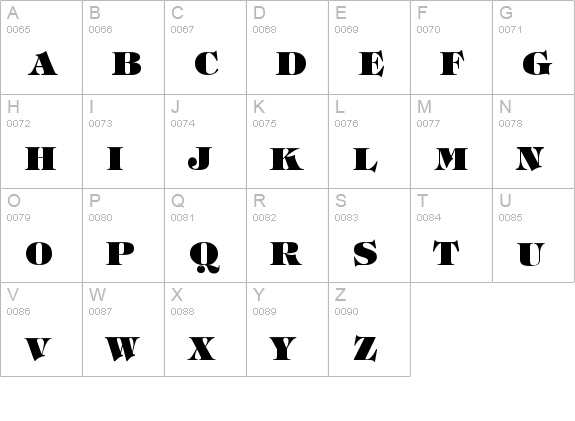
Tiffany-Heavy-Bold is a heavy, high-impact variant in the Tiffany typeface family \xE2\x80\x94 well suited to high-impact headlines, posters, and display advertising.
Introducing Tiffany-Heavy-Bold, a striking and powerful font that commands attention with its bold and heavy weight. This font exudes confidence, making it perfect for headlines, logos, and creative projects that require a strong visual impact. Tiffany-Heavy-Bold features clean and sharp lines that give it a modern and sophisticated look. Its thick strokes create a sense of stability and solidity, making it ideal for conveying a sense of strength and authority. But what sets Tiffany-Heavy-Bold apart is that it is not only visually impressive but also accessible to all. This font is freely available to download at FontsMarket.com, allowing designers, artists, and enthusiasts to easily incorporate it into their work without any restrictions. Whether you are designing a captivating poster, crafting a memorable logo, or simply looking to add a touch of boldness to your creative projects, Tiffany-Heavy-Bold is the perfect choice. Its versatility and striking aesthetic make it a must-have font in any designer's toolkit. So why wait? Download Tiffany-Heavy-Bold today from FontsMarket.com and unleash the power of this exceptional font in your designs. Let your creativity soar with the freedom to use this font in any way you desire, and make a lasting impression with the boldness and impact of Tiffany-Heavy-Bold.